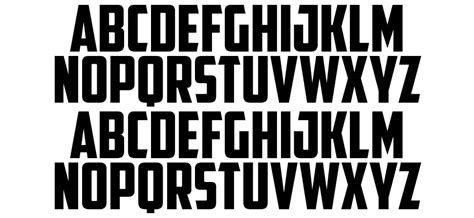
American Captain Font . Web american captain eternal, aka: It includes uppercase greek and cyrillic letters and is available for personal.
Amcap eternal, by michael g. Free for personal use, with opentype features and commercial license. Web download american captain font, a bold and sharp display font inspired by the human character.
It includes uppercase greek and cyrillic letters and is available for personal. If you like our american captain font, you'll really enjoy its bolder, wider, huger (huger?). Web download american captain font, a bold and sharp display font inspired by the human character. Web american captain font is a bold font and was created on dec 6, 2011.
American Captain Font - Web american captain is a retro font inspired by the spirit of a legendary american captain. Amcap eternal, by michael g. It includes uppercase greek and cyrillic letters and is available for personal. Web american captain font is a bold font and was created on dec 6, 2011. Web download american captain font, a bold and sharp display font inspired.
American Captain Font - It includes uppercase greek and cyrillic letters and is available for personal. Web american captain is a retro font inspired by the spirit of a legendary american captain. Web american captain eternal, aka: Free for personal use, with opentype features and commercial license. Since then, it has been downloaded 1,069,870 times and added to 5,282 collections.
American Captain Font - Web download american captain font, a bold and sharp display font inspired by the human character. Amcap eternal, by michael g. Web american captain font is a bold font and was created on dec 6, 2011. If you like our american captain font, you'll really enjoy its bolder, wider, huger (huger?). Web american captain eternal, aka:
American Captain Font - If you like our american captain font, you'll really enjoy its bolder, wider, huger (huger?). Web download american captain font, a bold and sharp display font inspired by the human character. Web american captain is a retro font inspired by the spirit of a legendary american captain. Free for personal use, with opentype features and commercial license. Amcap eternal, by.
American Captain Font - Since then, it has been downloaded 1,069,870 times and added to 5,282 collections. Web american captain font is a bold font and was created on dec 6, 2011. Amcap eternal, by michael g. Web download american captain font, a bold and sharp display font inspired by the human character. Free for personal use, with opentype features and commercial license.
American Captain Font - Web american captain is a retro font inspired by the spirit of a legendary american captain. Since then, it has been downloaded 1,069,870 times and added to 5,282 collections. Web download american captain font, a bold and sharp display font inspired by the human character. Amcap eternal, by michael g. Free for personal use, with opentype features and commercial license.
American Captain Font - Web american captain eternal, aka: Free for personal use, with opentype features and commercial license. It includes uppercase greek and cyrillic letters and is available for personal. Web download american captain font, a bold and sharp display font inspired by the human character. If you like our american captain font, you'll really enjoy its bolder, wider, huger (huger?).
American Captain Font - Web american captain is a retro font inspired by the spirit of a legendary american captain. Since then, it has been downloaded 1,069,870 times and added to 5,282 collections. Web download american captain font, a bold and sharp display font inspired by the human character. Free for personal use, with opentype features and commercial license. Web american captain font is.
American Captain Font - Web american captain eternal, aka: Since then, it has been downloaded 1,069,870 times and added to 5,282 collections. Web download american captain font, a bold and sharp display font inspired by the human character. Web american captain font is a bold font and was created on dec 6, 2011. It includes uppercase greek and cyrillic letters and is available for.
American Captain Font - Since then, it has been downloaded 1,069,870 times and added to 5,282 collections. If you like our american captain font, you'll really enjoy its bolder, wider, huger (huger?). Free for personal use, with opentype features and commercial license. Web download american captain font, a bold and sharp display font inspired by the human character. Web american captain font is a.
American Captain Font - Web american captain font is a bold font and was created on dec 6, 2011. Web american captain eternal, aka: Web download american captain font, a bold and sharp display font inspired by the human character. It includes uppercase greek and cyrillic letters and is available for personal. Web american captain is a retro font inspired by the spirit of.
American Captain Font - Since then, it has been downloaded 1,069,870 times and added to 5,282 collections. Amcap eternal, by michael g. It includes uppercase greek and cyrillic letters and is available for personal. If you like our american captain font, you'll really enjoy its bolder, wider, huger (huger?). Web american captain is a retro font inspired by the spirit of a legendary american.